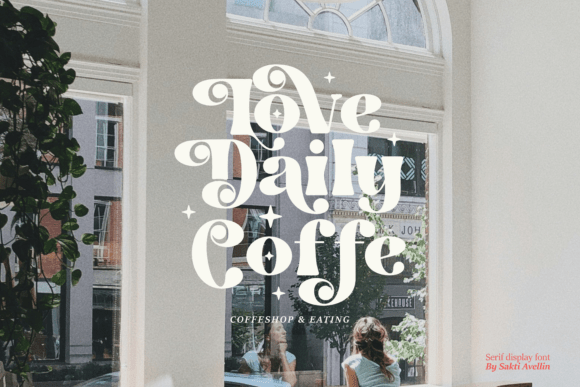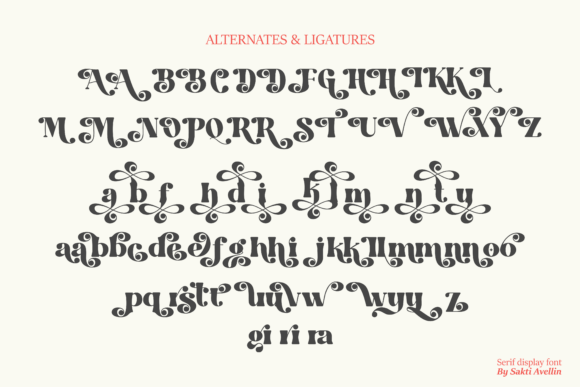
Bright Stars Font
Introducing “Bright Stars,” a serif display font that exudes charm and playfulness. Designed with a playful and elegant touch, this font will take your designs to the next level with its unique character. “Bright Stars” comes with a rich set of alternate characters and ligatures, allowing you to create endless variations and personal touches on each letter. Explore different styles to get the perfect look. This package comes with two main styles: Regular for a solid look and Italic for a more dynamic and elegant touch. Perfect for Branding and Logos, Product Packaging, Magazines, Books, Posters, Greeting Cards, Invitations, T-shirts, Mugs, Tote Bags, Social Media and Digital Content.